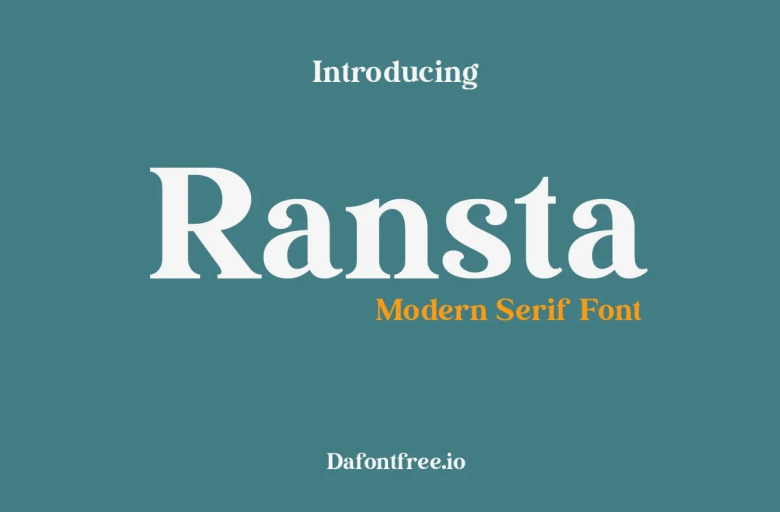
Ransta Font
Ransta is a typeface that is sleek and elegant with a modern and spirited serif tailored to produce a timeless vintage and vintage surface. It shines especially for logos, social media, ads, packaging, a watermark, invitation, stationery, T-shirt, prints, posters and more all projects of branding.
Ransta Serif Font